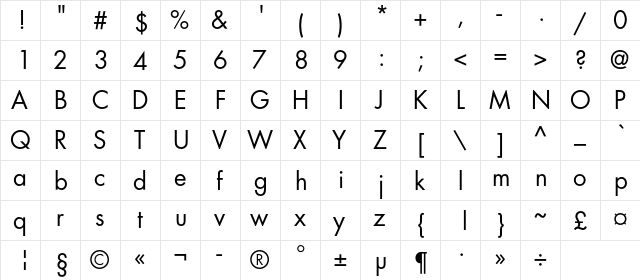
FavoritBookC Regular Font Preview
FavoritBookC Regular
FavoritBookC Regular Font Details
Design Context for FavoritBookC Typeface
FavoritBookC is a composed and adaptable typeface that performs quietly and consistently across a wide range of design contexts.